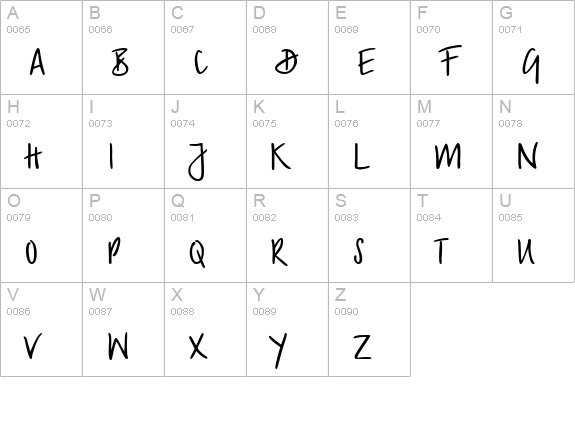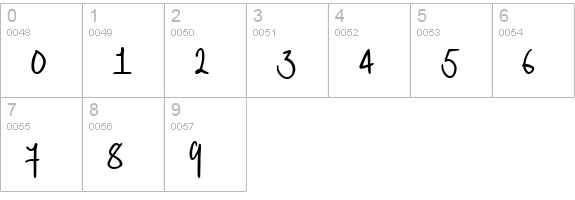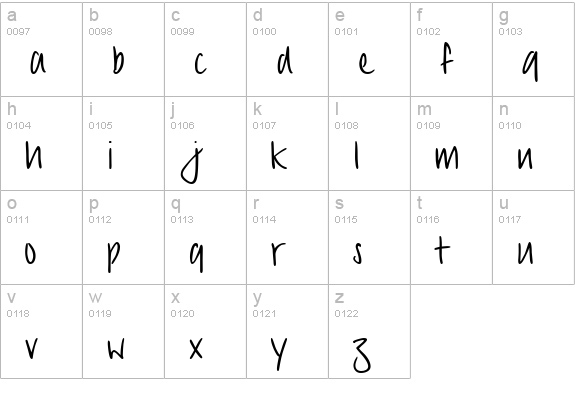
PuterNana Font Details
Introducing PuterNana font, a versatile and modern typeface that exudes elegance and sophistication. With its sleek lines and balanced proportions, PuterNana is perfect for a wide range of design projects, from branding to editorial layouts. This elegant font is available for free download at FontsMarket.com, making it easily accessible for designers and creatives looking to elevate their work with a touch of timeless style. Whether you're crafting a logo, designing a website, or creating eye-catching print materials, PuterNana will add a touch of class to your projects. With its clean and contemporary aesthetic, PuterNana font is sure to make a lasting impression on your audience. Download it today and see the difference it can make in your designs.